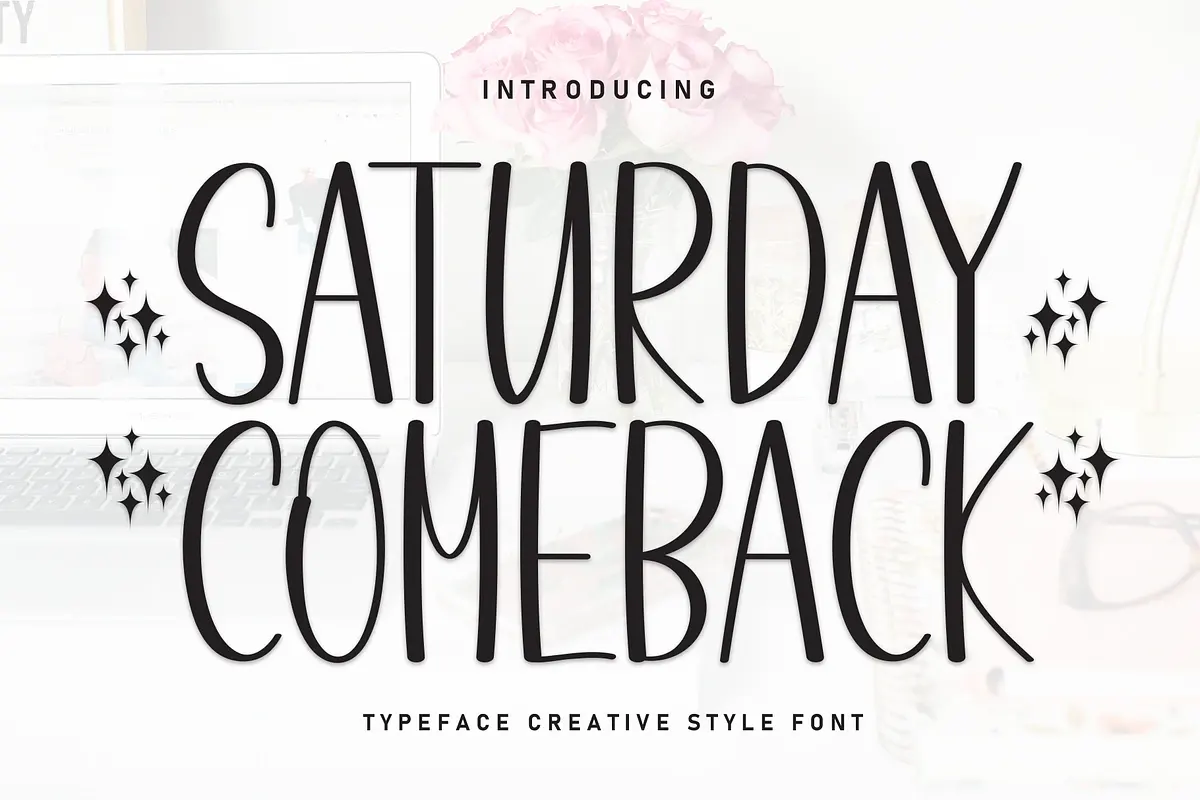
Saturday Comeback | Script Font Free Download
Saturday Comeback | Script Font Free Download is a lively and expressive handwritten typeface that brings energy and charm to every design. Please note: you must purchase this font for commercial use, but you can test it through a free download. With its casual script style and smooth, flowing lines, Saturday Comeback is perfect for social media graphics, branding, quotes, wedding invites, and lifestyle blogs.
This font captures a fun, spontaneous vibe—like a handwritten note on a perfect weekend. Whether you're crafting a playful logo or a heartfelt message, Saturday Comeback | Script Font Free Download adds a personal, stylish touch that feels fresh and authentic. Compatible with popular design tools like Adobe Photoshop, Illustrator, and Canva, it’s easy to use and highly versatile. Download it now for personal use and bring a splash of personality and weekend joy to your creative projects!